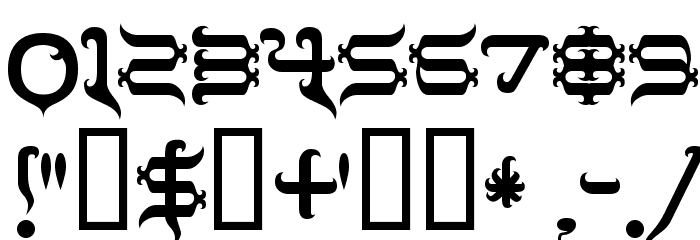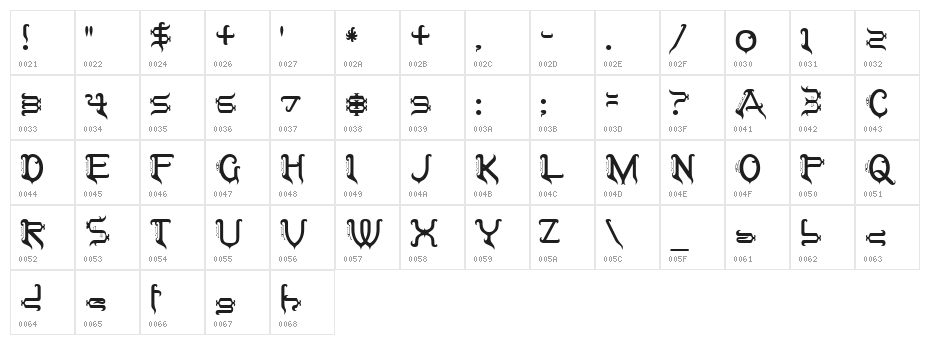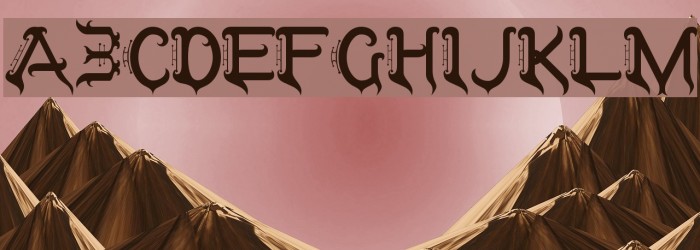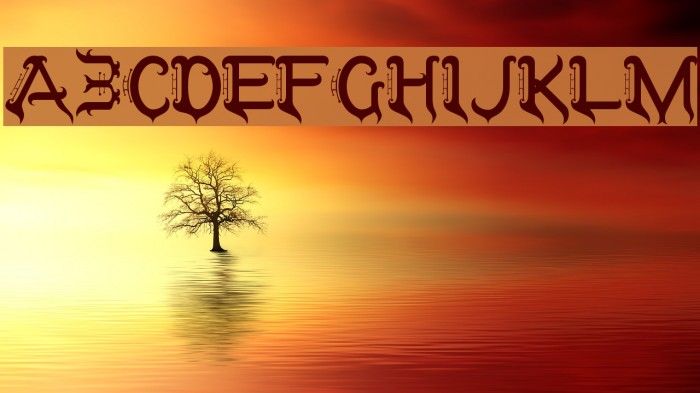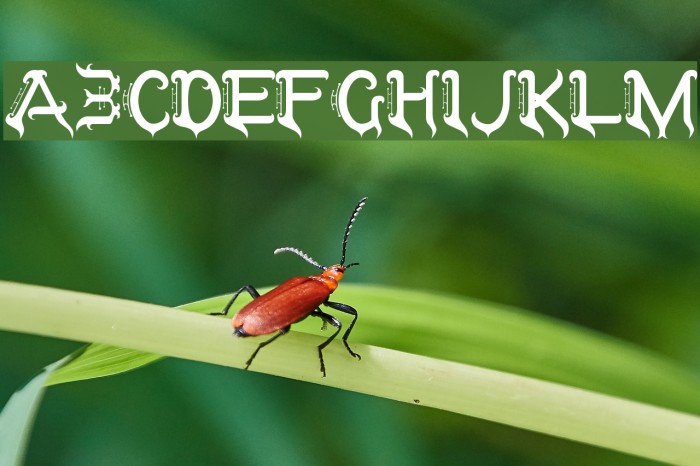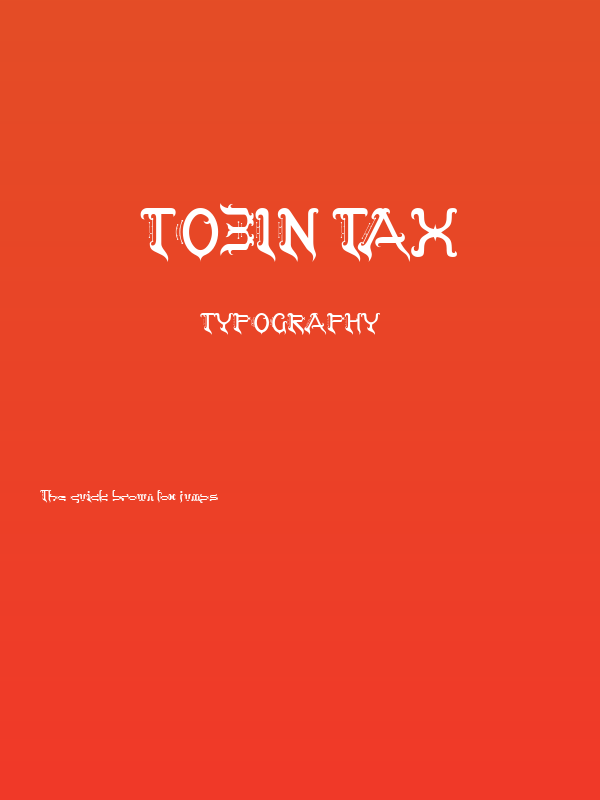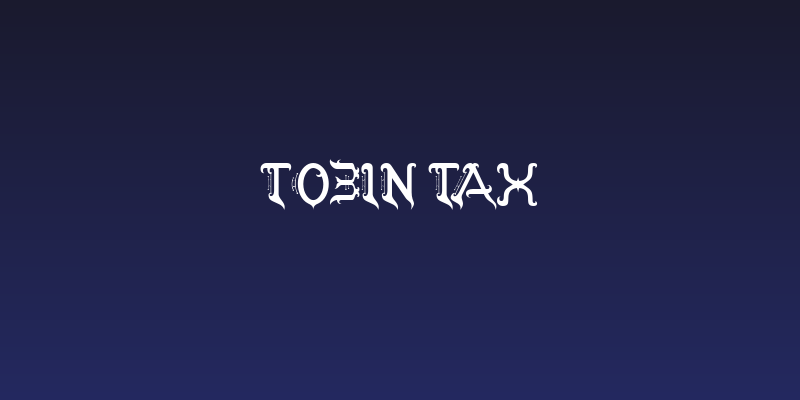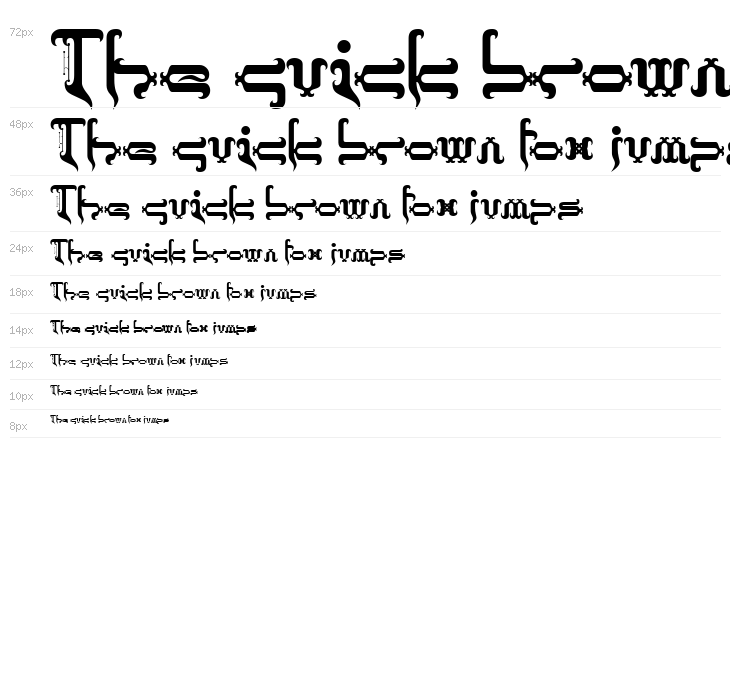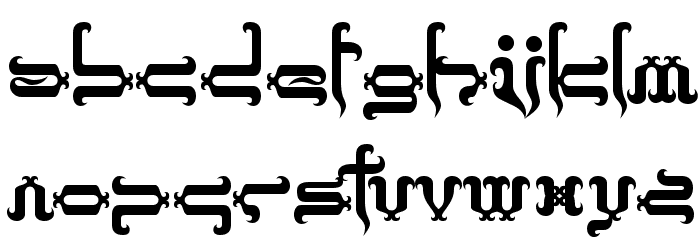
Tobin Tax Font
Tobin Tax Description
This font exhibits a highly decorative and intricate style, characterized by its unique and elaborate serifs and flourishes. Each letter is adorned with ornate details that give it a distinct, almost Gothic appearance. The uppercase letters are bold and commanding, while the lowercase letters maintain the same decorative elements, creating a cohesive and visually striking typeface. The numbers and special characters follow the same design principles, ensuring consistency across all elements. This font's complex design makes it stand out, making it suitable for projects that require a touch of elegance and sophistication.